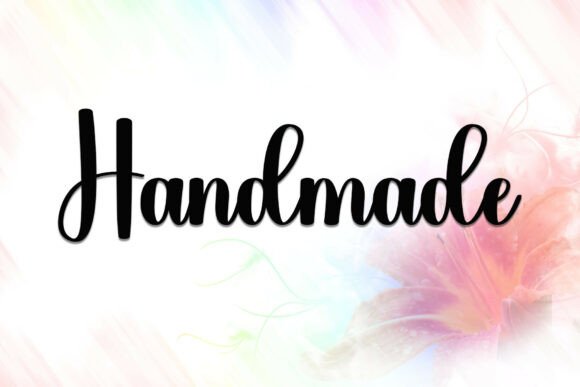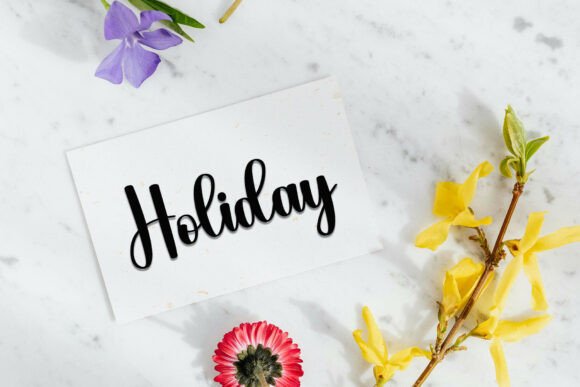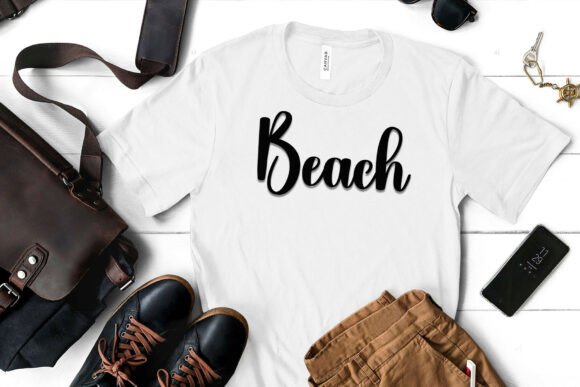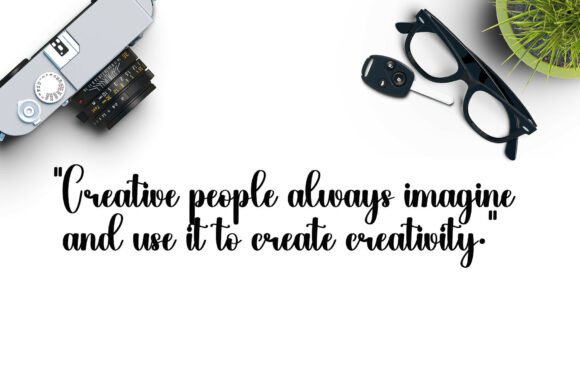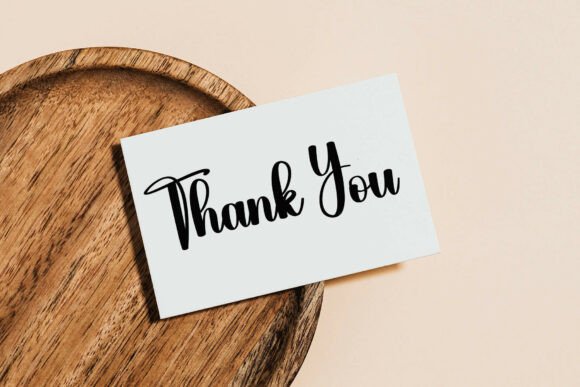
Deck the Halls with Type: Discover the Sweet Charm of Candy Christmas Font
As the holiday season approaches, designers are often on the lookout for the perfect font to capture the magic and whimsy of the season. We’ve all been there – rummaging through our font libraries, scrolling through design inspiration boards, and experimenting with different styles until we find that one font that screams ‘festive joy’.
Enter Candy Christmas Font, a delightful handwritten font that embodies the essence of a sweet and merry Christmas. This charming font is designed to add a playful touch to your holiday creations, from Christmas cards and gift tags to party invitations and seasonal branding. Whether you’re a seasoned designer or a crafty enthusiast, Candy Christmas Font is a valuable addition to your toolkit, offering endless possibilities for creative expression and festive flair.
Candy Christmas Font Key Features
- Font Style: A playful, festive font perfect for holiday-themed designs.
- Character Set: Includes a wide range of characters, including uppercase and lowercase letters, numbers, and punctuation marks.
- Unique Characteristics: Features a distinctive, hand-drawn look with bold lines and playful flourishes, making it perfect for adding a touch of whimsy to holiday designs.
Candy Christmas Font Review
I recently had the chance to work with the “Candy Christmas Font”, and I have mixed feelings about it. Here are some of my thoughts:
- The font has a unique and festive feel to it, making it perfect for holiday-themed projects.
- The bold and playful style of the font makes it great for headings and titles.
- The font is highly customizable, allowing for a wide range of color and size options.
- The font can be quite overwhelming, making it difficult to read in large blocks of text.
- The font is not ideal for body text, as it can be hard to distinguish between different letters and words.
- The font is not suitable for formal or professional projects, due to its playful and festive nature.
Overall, I think the “Candy Christmas Font” is a fun and unique addition to any holiday project. However, it’s not suitable for every use case, and it’s essential to use it thoughtfully to avoid overwhelming your audience.
The Candy Christmas Font is ideal for holiday-themed designs, such as Christmas cards, gift tags, and decorations.
To get the most out of the font, use it in conjunction with other festive elements, such as snowflakes, holly, and candy canes.
Experiment with different font sizes, colors, and styles to create a unique and eye-catching design.